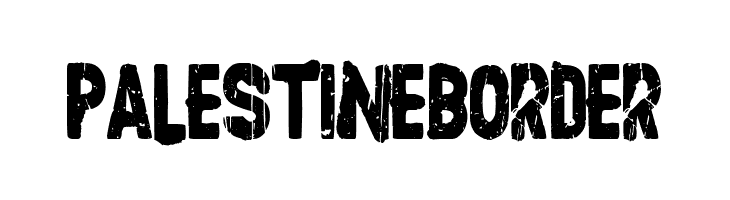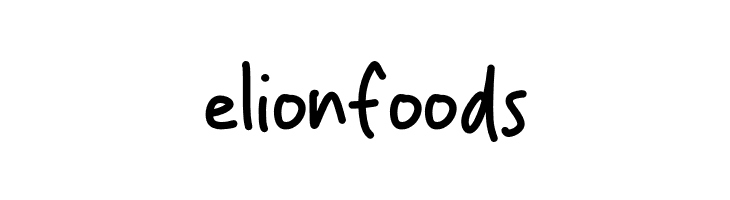
An ornate and decorative font with intricate serifs and flourishes.
A playful, bold handwritten font with rounded edges and a casual style.
A bold, gothic Blackletter font with intricate detailing and sharp, angular lines.
A dynamic, brush-style script font with an expressive, hand-drawn appearance.
A playful and elegant script font with interconnected loops and swirls.
A lively and dynamic script font with fluid, cursive letterforms.
A playful, handwritten script font with a whimsical style.
A playful, casual handwritten font with smooth, flowing curves.
An elegant, cursive font with flowing, decorative characters.
A dynamic, angular, and italicized font with bold strokes and medium contrast.
A modern, monospaced font with a clean, technical appearance.
An ornate and decorative font with elaborate swirls and flourishes.
An elegant and decorative script font with flowing, interconnected letters.
A dynamic and elegant script font with flowing cursive letterforms.
A bold, geometric font with a futuristic and modern style.
A bold, futuristic font with sharp angles and a geometric structure.
A bold, playful script font with connected characters and a lively style.
A bold, energetic script font with dynamic strokes and a hand-drawn feel.
A bold, playful handwritten font with thick strokes and energetic curves.
A bold, brushstroke font with a dynamic and artistic style.
A bold, expressive handwritten font with playful curves and thick strokes.
A bold, sketch-like handwritten font with dynamic strokes and artistic flair.
A bold, brush-style font with a lively, hand-painted look.
A bold, brush-style font with dynamic, handcrafted strokes.
A playful, hand-drawn font with a dynamic and whimsical style.
A bold, brush-style font with dynamic and expressive strokes.